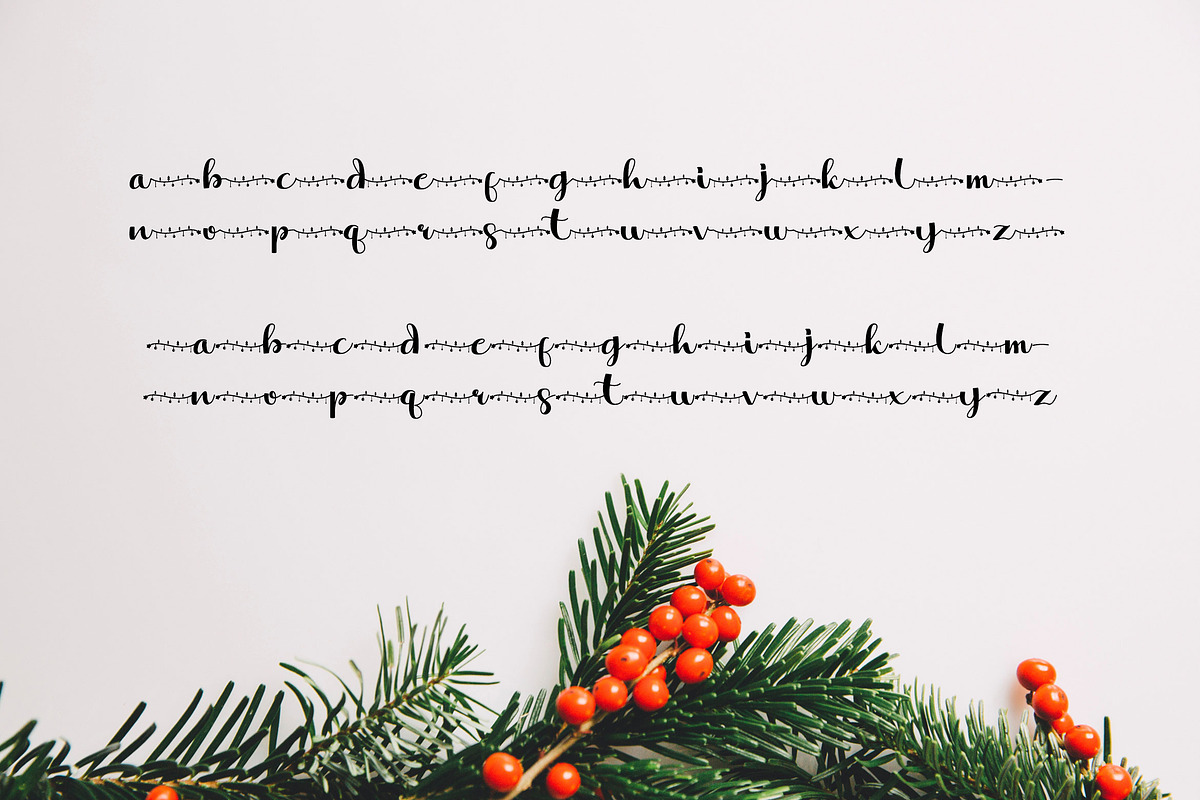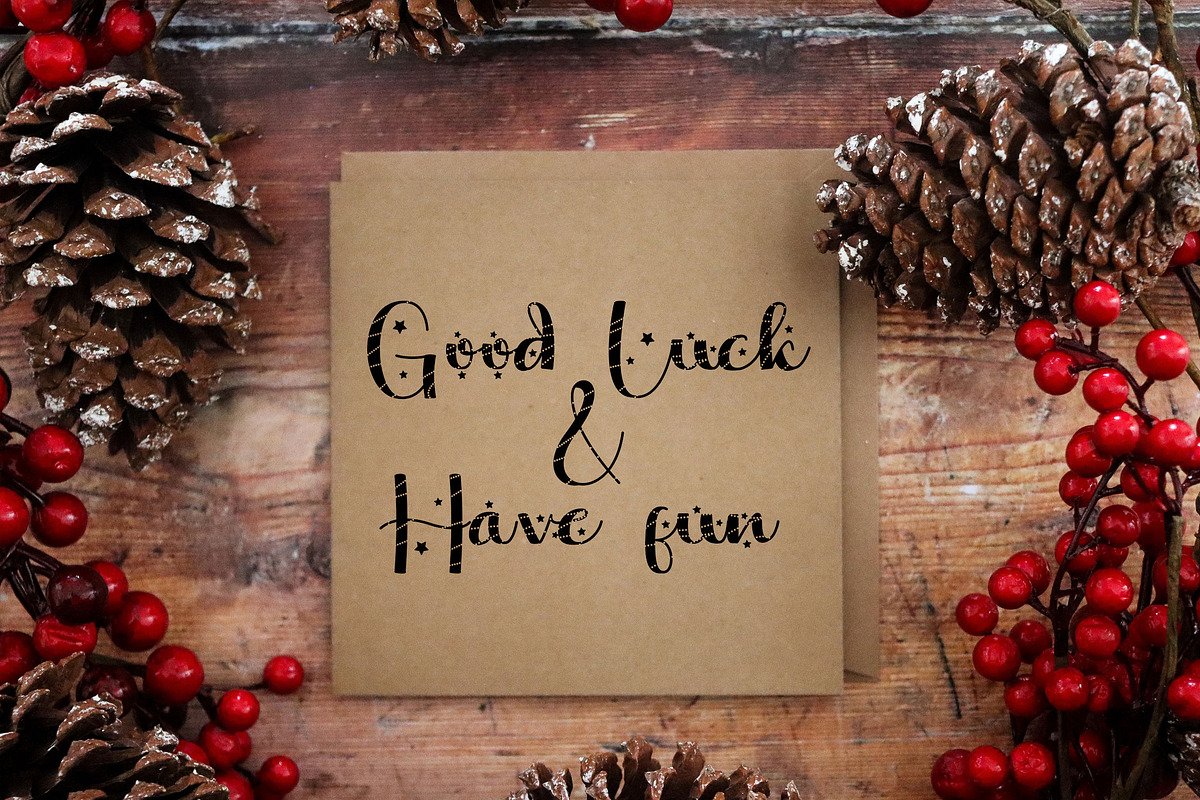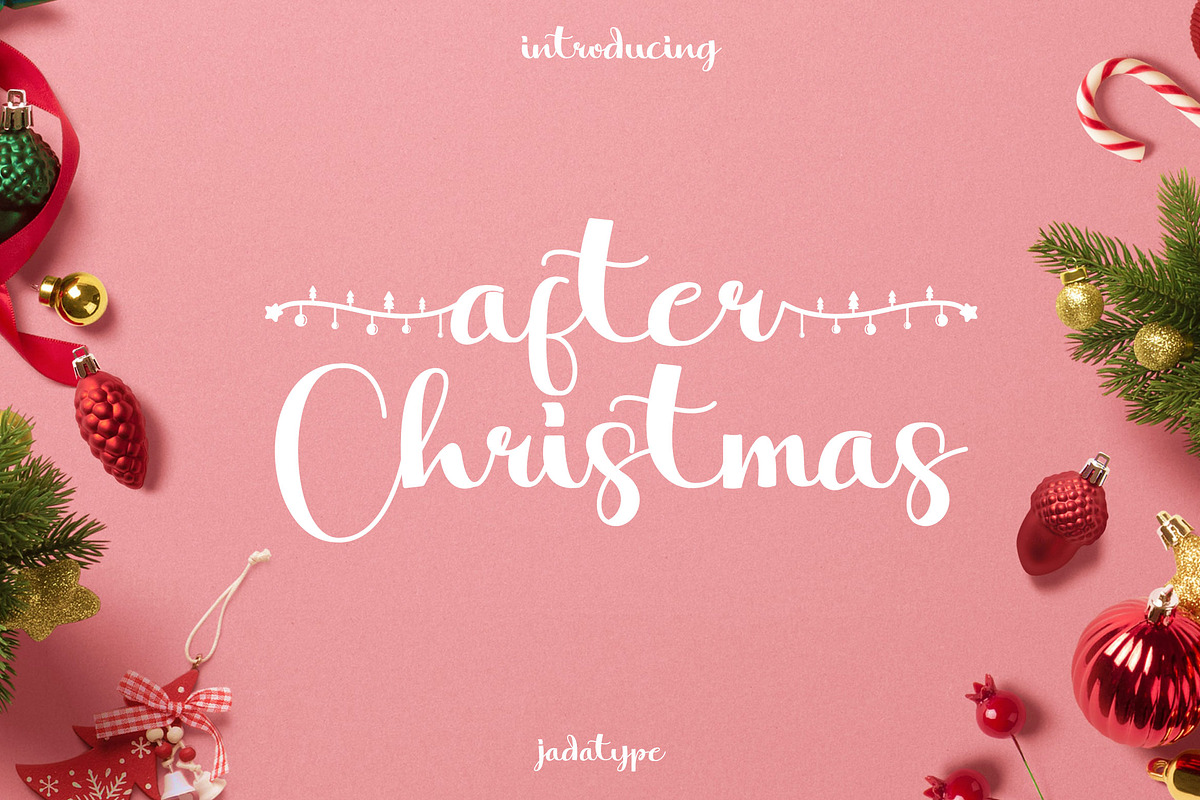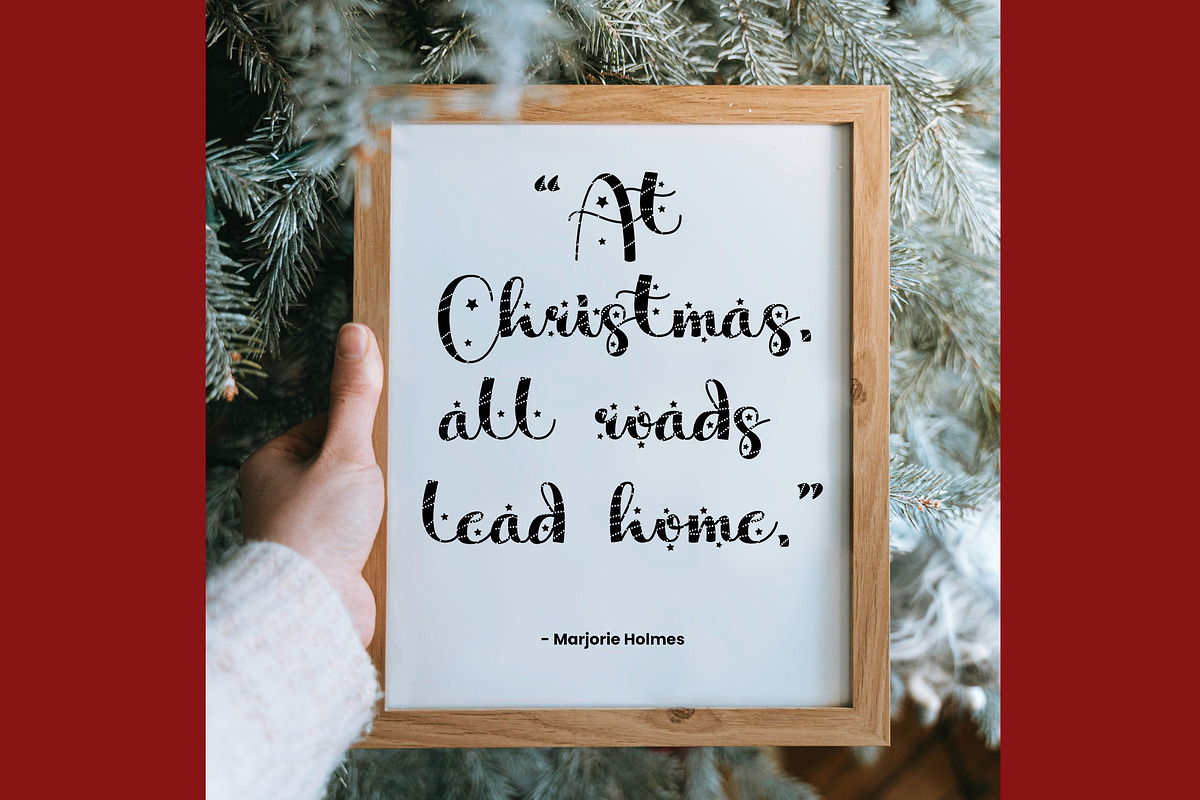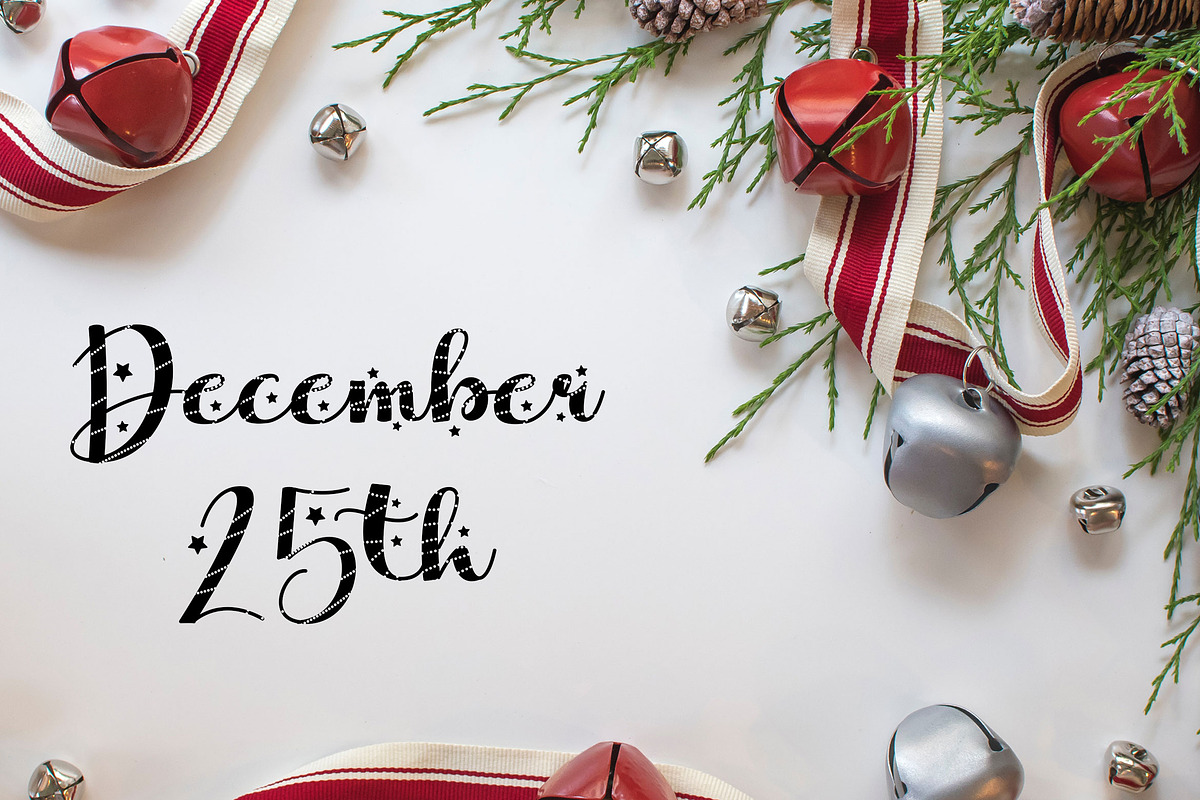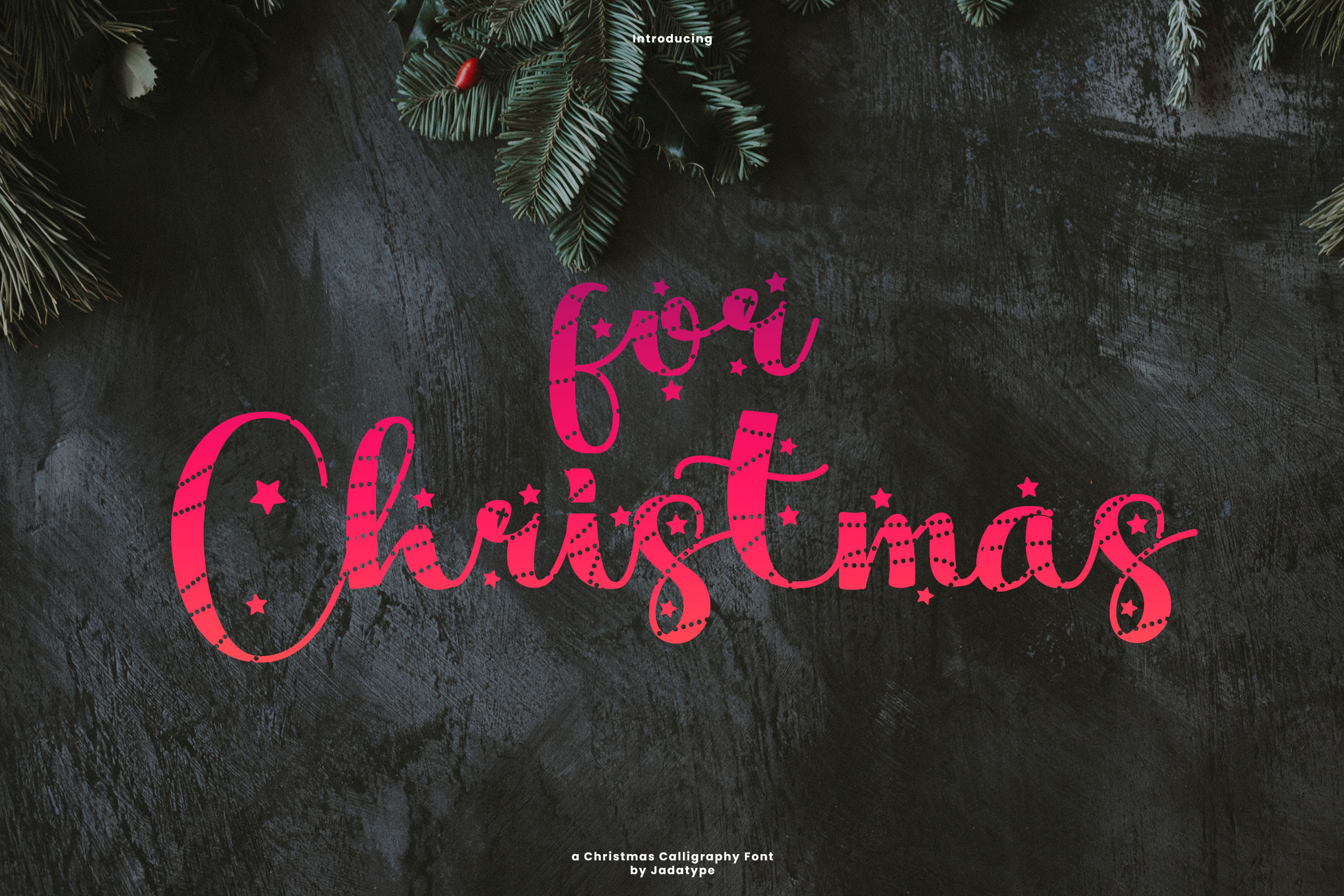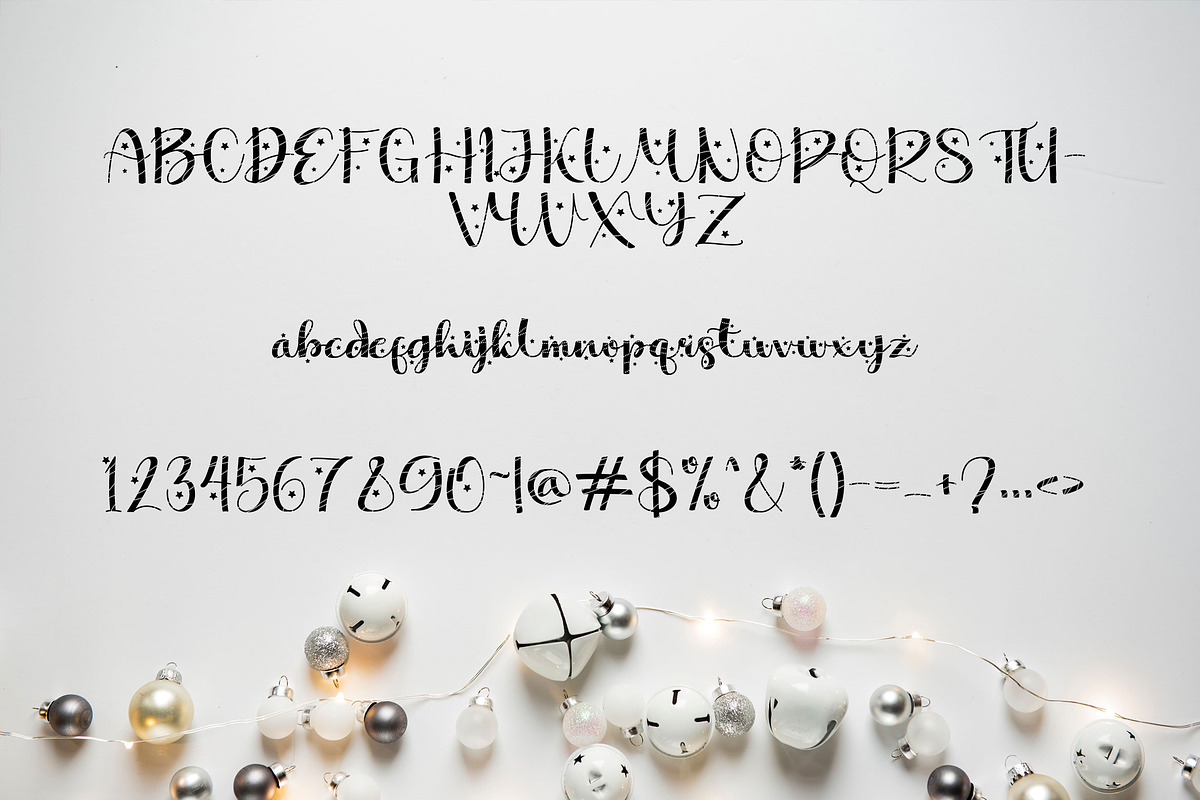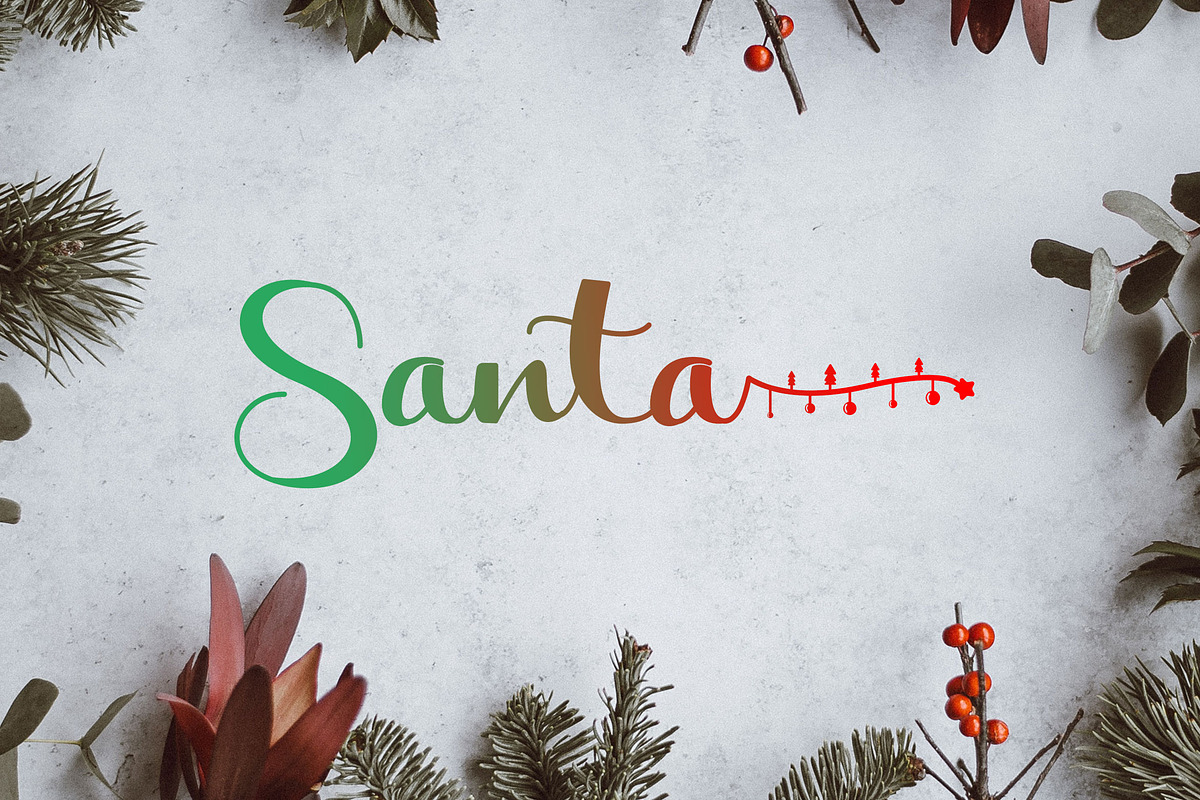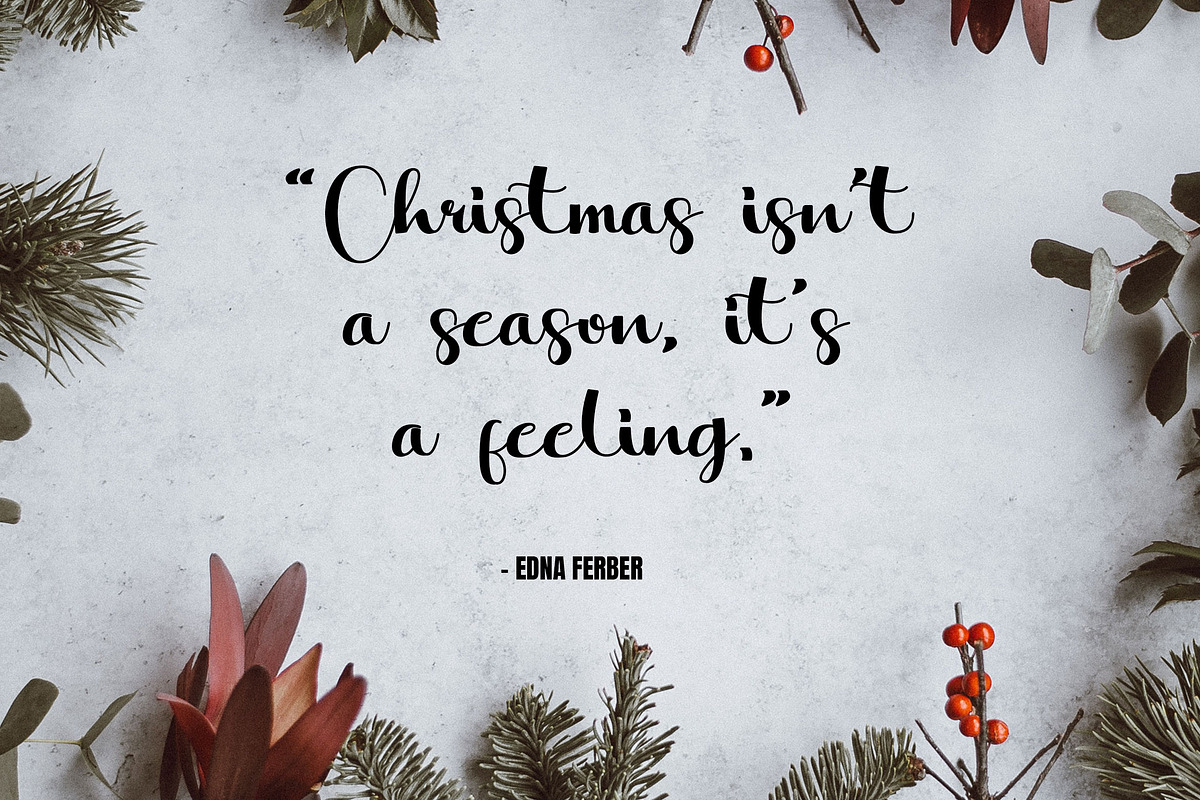
For & After | Christmas Font Duo
For & After is a festive script font duo perfect for Christmas designs, blended with 2 playful scripts. Easily installed in Adobe and Affinity apps, it adds a joyful touch to your holiday projects